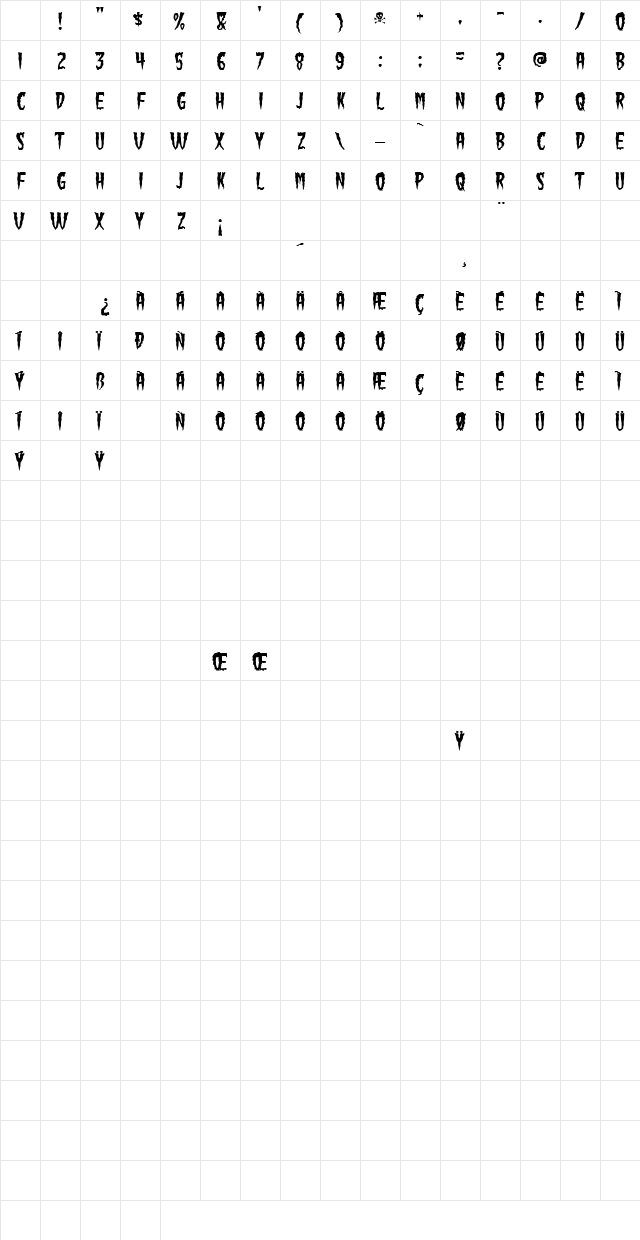
Complete Green Fuz Regular glyph index. Displaying only characters natively supported by Green Fuz Regular font.
Green Fuz is a composed and adaptable typeface that performs quietly and consistently across a wide range of design contexts.